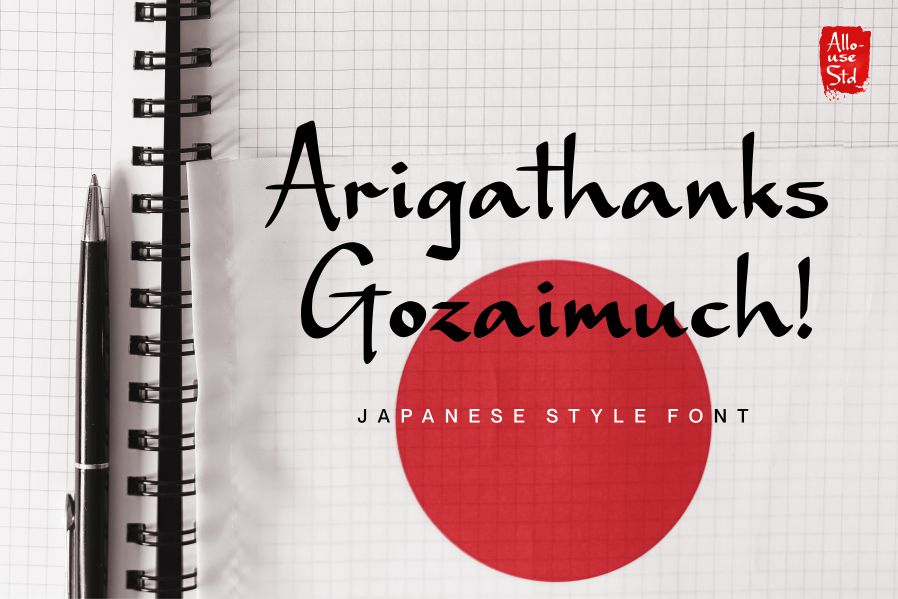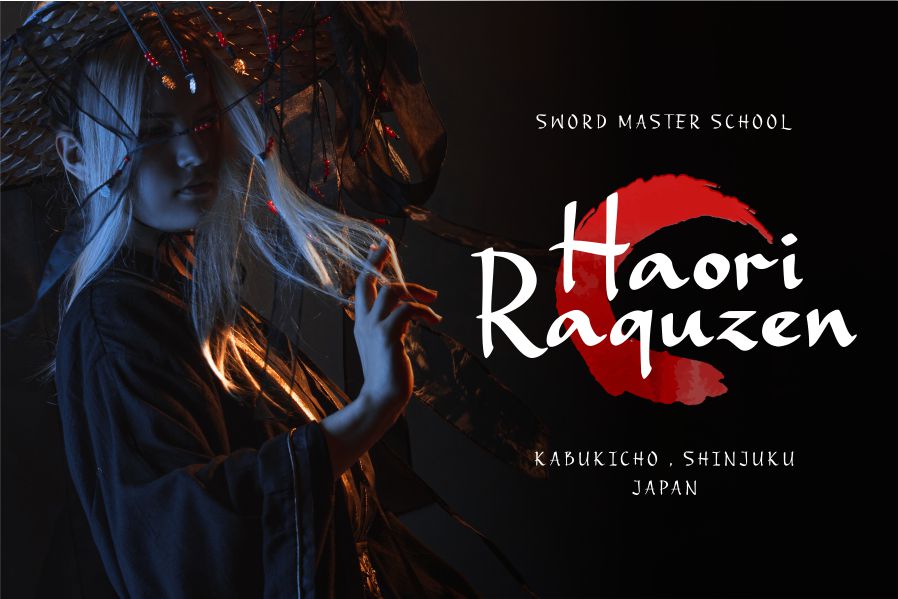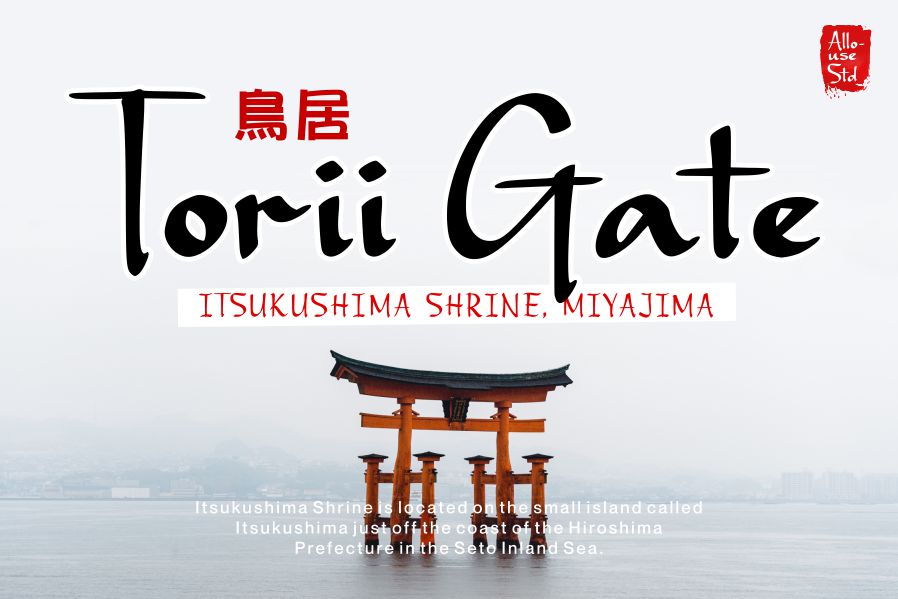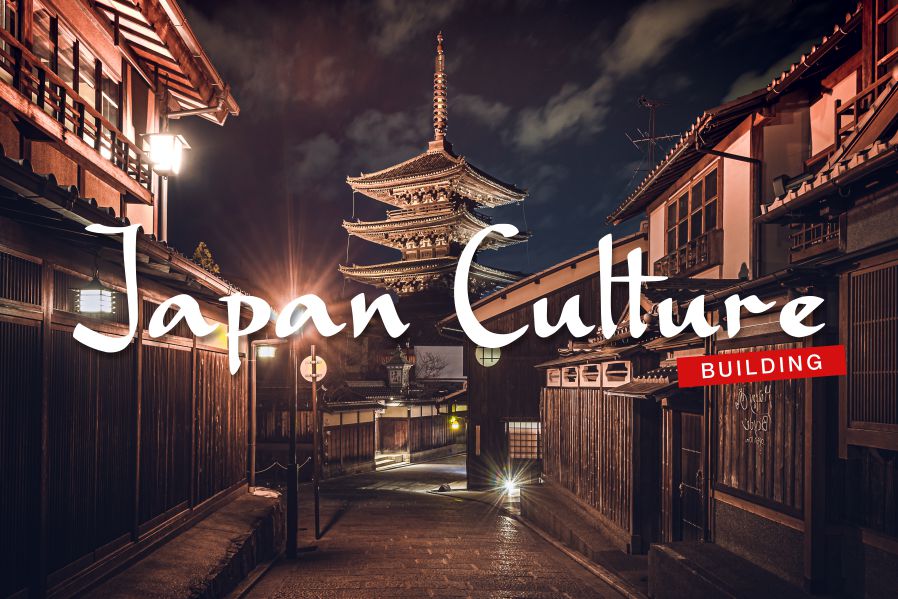
Gaze Nozarashi Font
Gaze Nozarashi Handwritten Font
This is a Japanese styled display font. It is perfect for product packaging, branding project, magazine covers, social media, wedding, or just used to express words above the background.